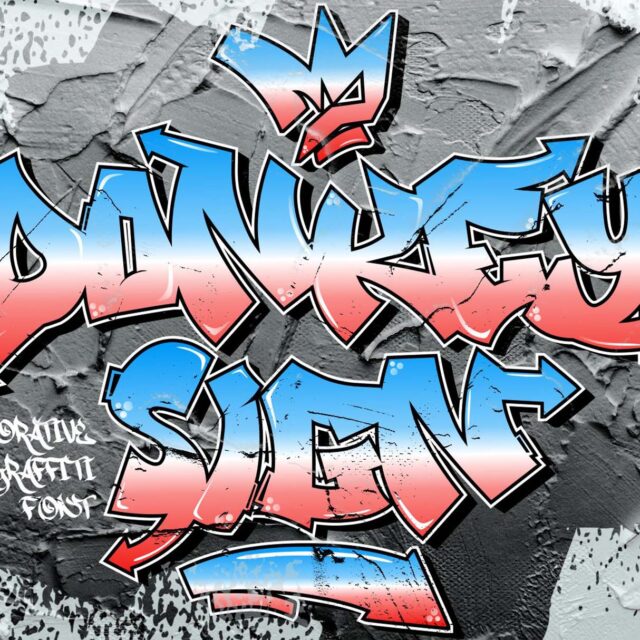
About Donkey Sign
“Donkey Sign” is a spectacular decorative font with a graffiti style and sign decorative elements. It elevates a wide range of design projects, including branding, headings, invitations, and more. With its unique and captivating look, this font adds urban sophistication and artistic flair to your designs, making them visually appealing and memorable.